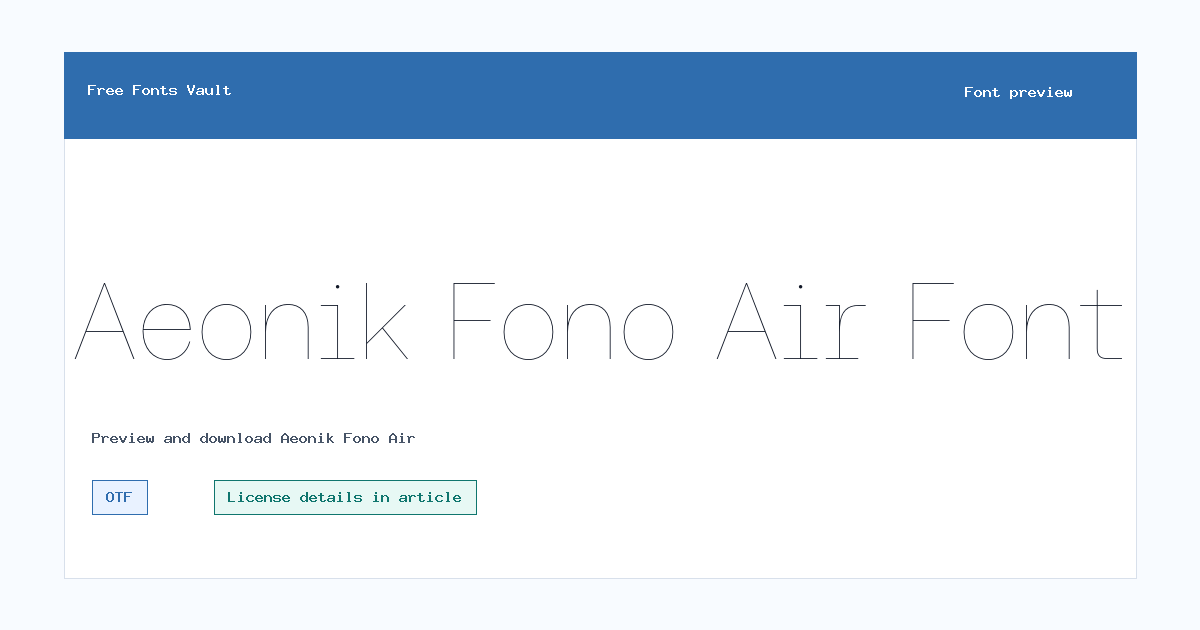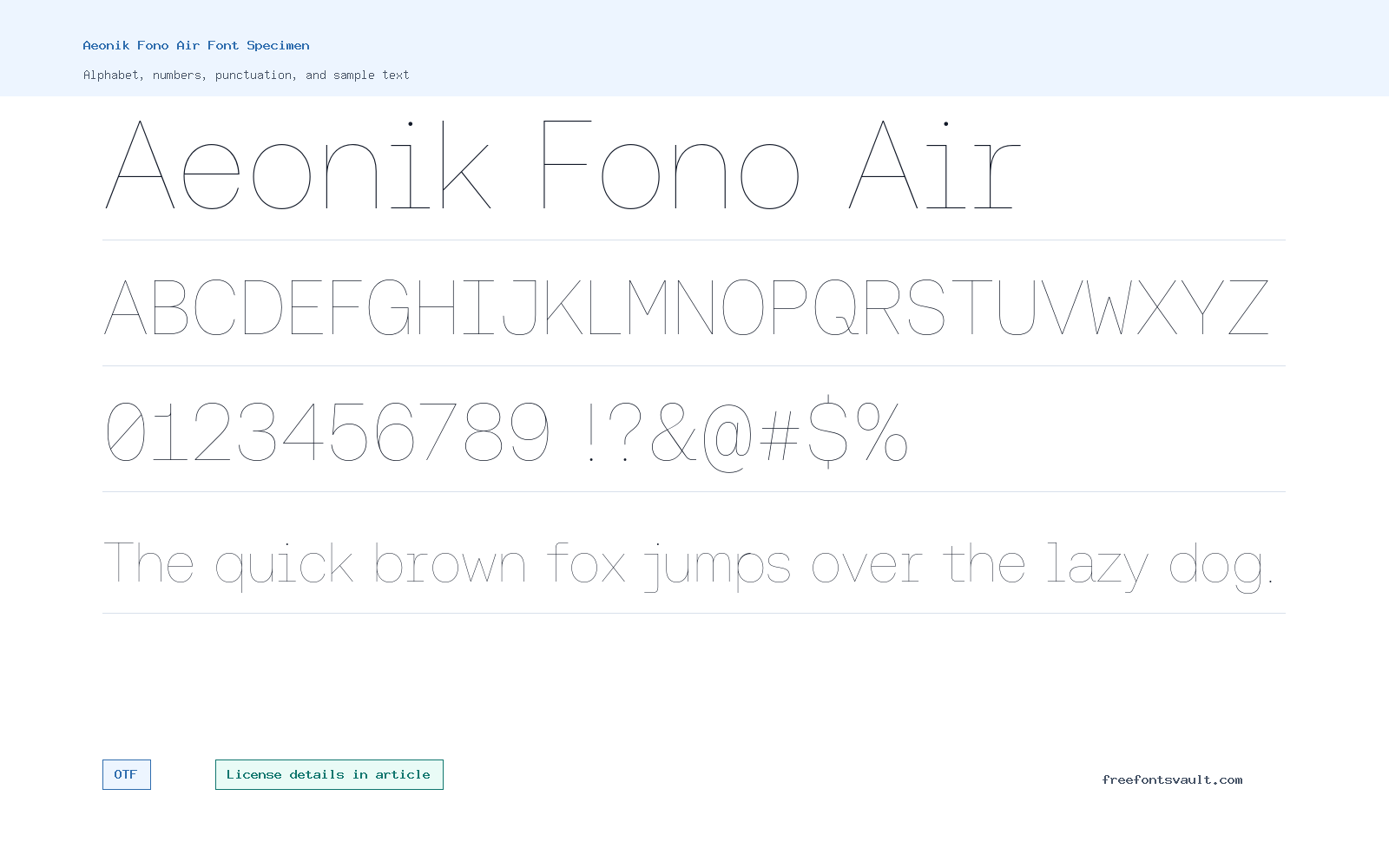
Aeonik Fono Air
- Designer Mark Bloom
- Foundry CoType Foundry
Aeonik Fono Air font.
About Aeonik Fono Air
Aeonik Fono Air is listed as a normal-style, 400-weight regular variant supplied in OpenType format. That makes it straightforward to test in most design apps and modern operating systems. Because only one variant is present, it is best to judge the font on the exact words, numbers, and punctuation you expect to use rather than assuming a wider family is included.
For practical use, start with short samples such as titles, navigation labels, captions, product names, or small blocks of interface text. Check how the spacing feels at both small and large sizes, and pay attention to numerals if your design includes prices, codes, dates, or technical information. If you need a full typographic system with bold, italic, or multiple weights, confirm whether matching styles are available from the foundry.
Aeonik Fono Air is a good candidate for projects where the details matter: dashboards, product labels, code-adjacent interfaces, technical captions, and clean editorial systems. The “Fono” naming suggests a more measured, utility-minded voice, while the Air style keeps the tone lighter and less heavy than a typical geometric sans.
Use the preview to test mixed text, not only a single word. Try uppercase labels, lowercase names, numerals, slashes, version numbers, and punctuation. If your layout depends on tabular information or repeated labels, check whether the spacing stays even enough for your use case before committing to it.
- Clean regular OTF style for labels, headings, and interface-like text
- Technical labels, dashboard text, product UI drafts, and restrained brand systems
Aeonik Fono Air is credited to Mark Bloom, with CoType Foundry listed as the foundry.
Who designed Aeonik Fono Air?
The font is credited to Mark Bloom.
What weight is included?
The listed variant is regular, with normal style and 400 weight.